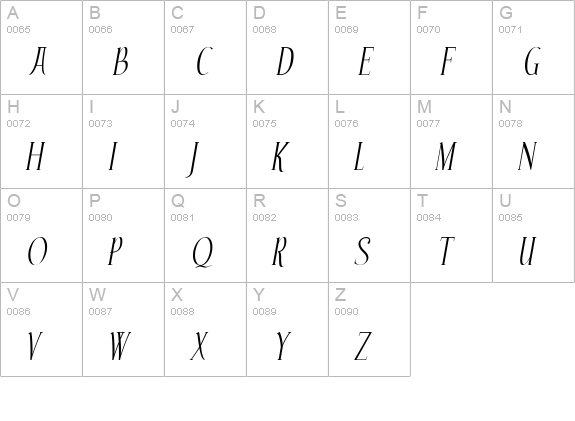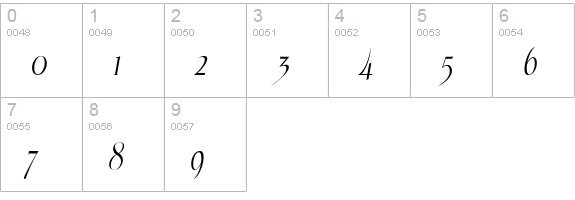
Echelon Italic is a distinctive, italic variant in the Echelon typeface family \xE2\x80\x94 well suited to design and typography projects.
Introducing Echelon Italic, a mesmerizing font that exudes elegance and sophistication. Crafted with meticulous attention to detail, this typeface is the perfect balance between classic and contemporary design. Its graceful curves and slanted strokes create a sense of fluidity and movement, making it ideal for projects that require a touch of dynamism. Echelon Italic is not only visually stunning, but it also boasts exceptional legibility, ensuring that your messages are conveyed with clarity and impact. Whether you're designing a logo, crafting invitations, or creating a striking headline, this font will elevate your work to new heights. What sets Echelon Italic apart is its versatility and adaptability. It seamlessly blends with various design styles, from modern and minimalist to vintage and ornate. This font is a true chameleon, effortlessly transforming to suit any creative vision. And the best part? Echelon Italic is absolutely free. That's right, you can download this remarkable font at no cost from FontsMarket.com. Now, you can enhance your designs without breaking the bank. So why wait? Unlock the potential of your projects with Echelon Italic and experience the power of this exceptional font.